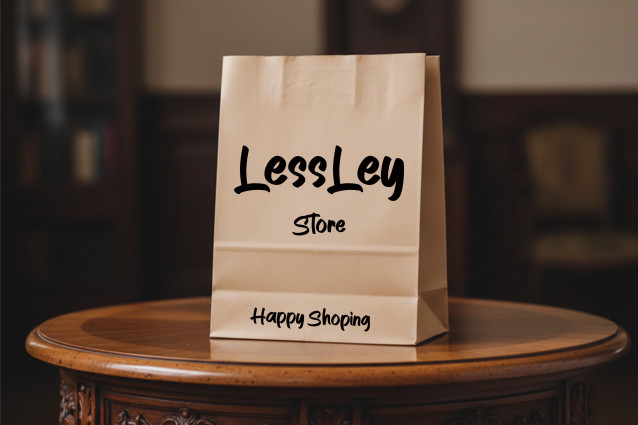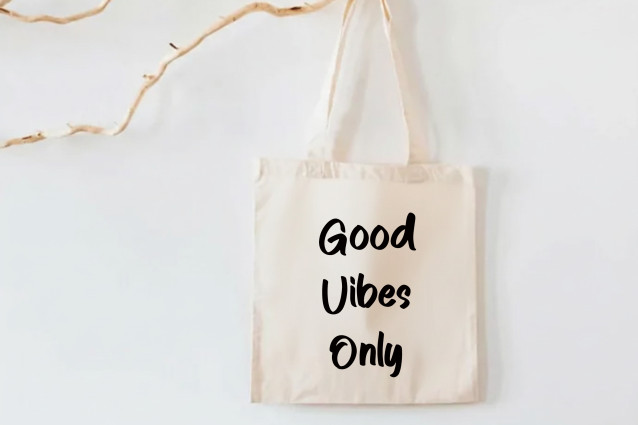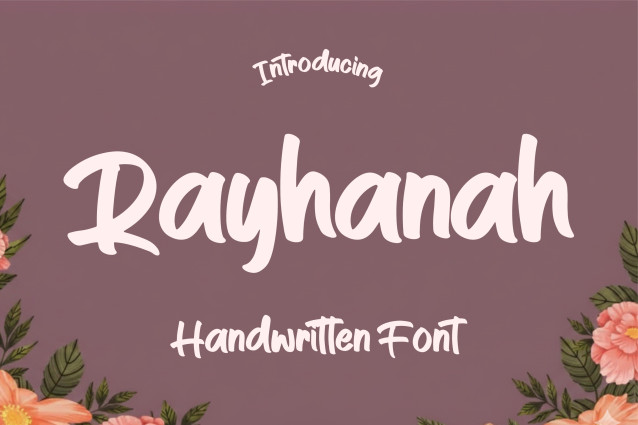
Rayhanah Font is a simple and friendly handwritten font. Its natural and unique style makes it incredibly fitting to a large pool of designs. The only limit is your imagination!
Rayhanah Font
| Classification: | Handwritten Fonts, Playful / Fun Fonts, Style / Aesthetic Fonts |